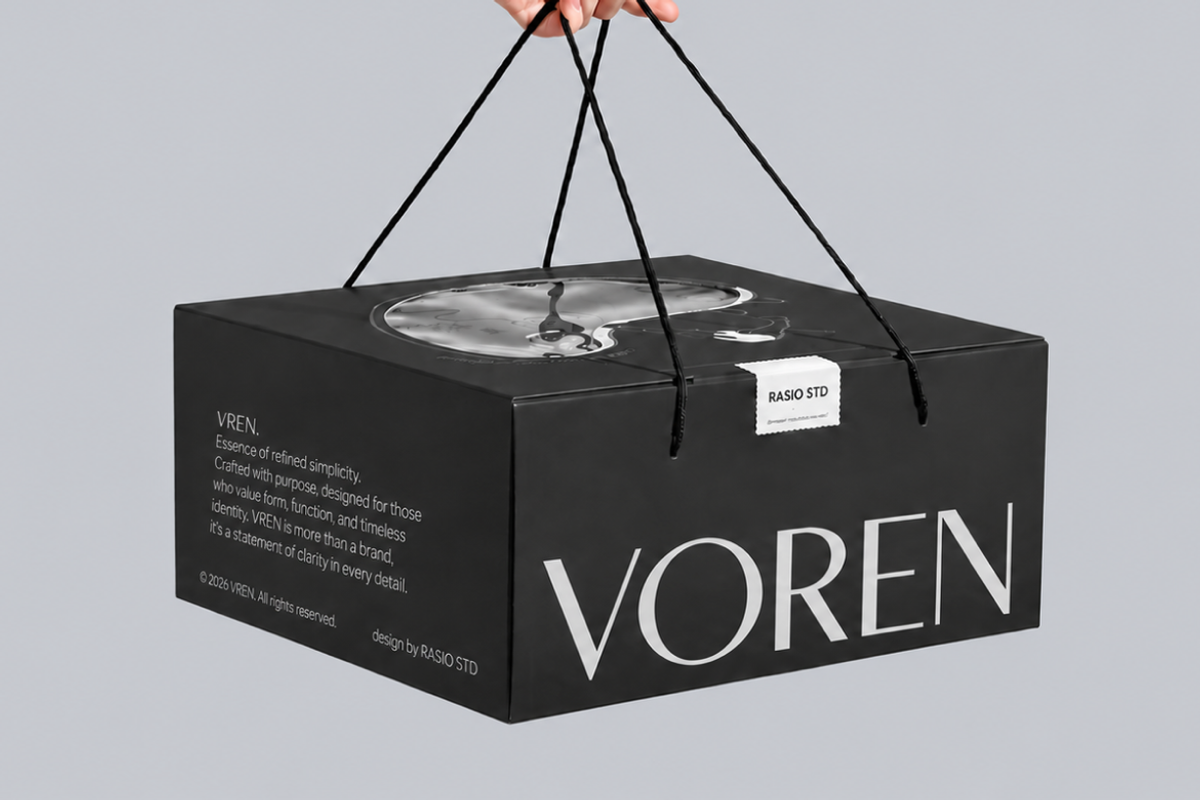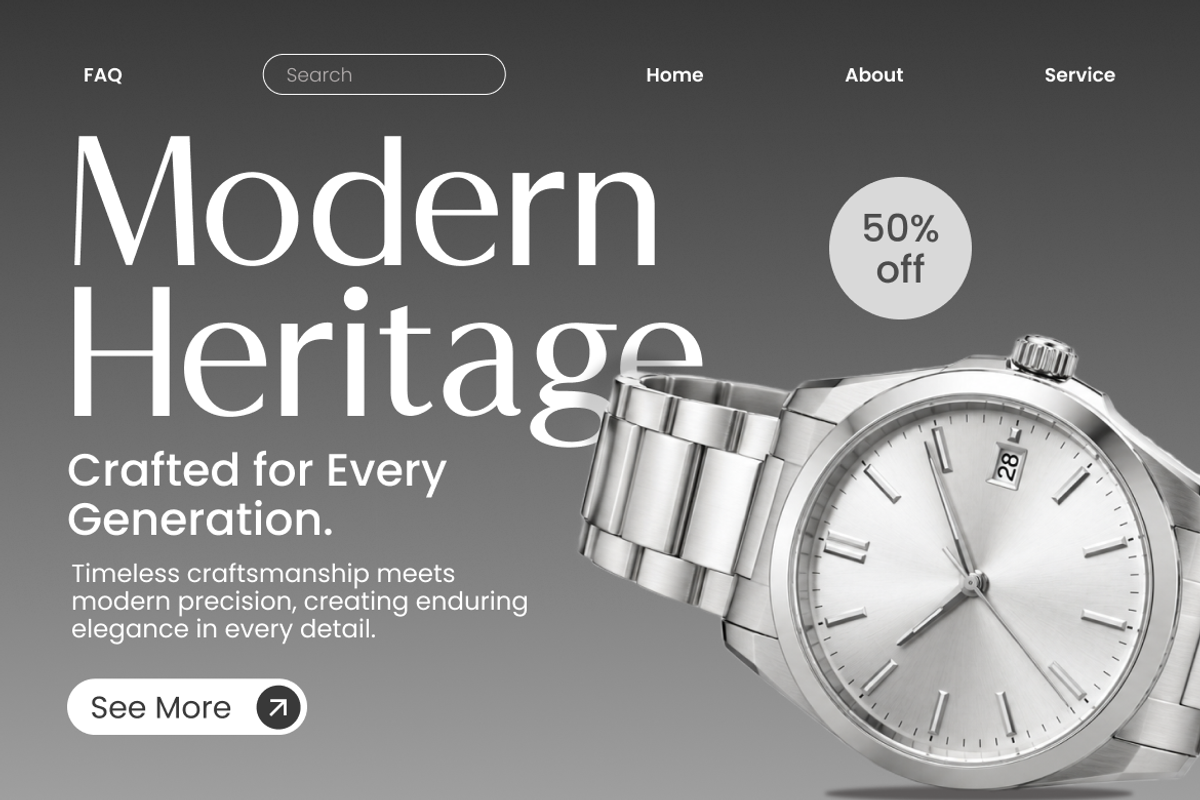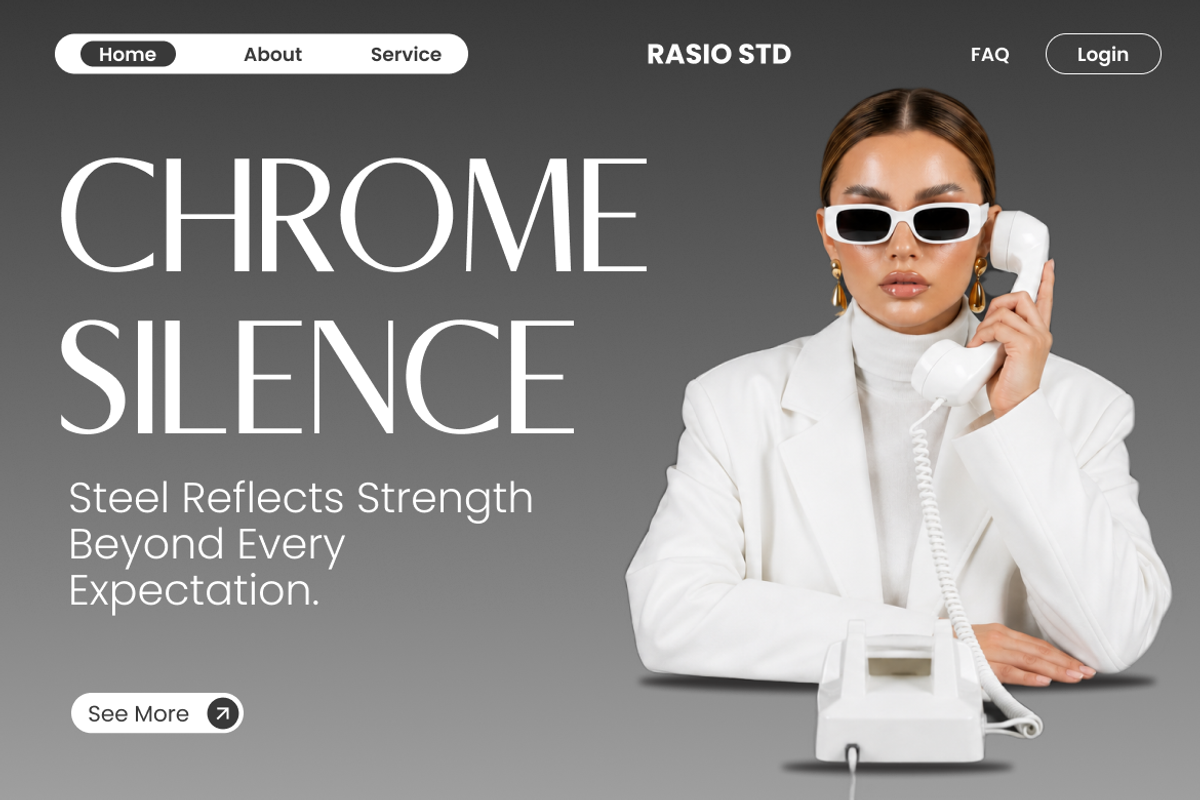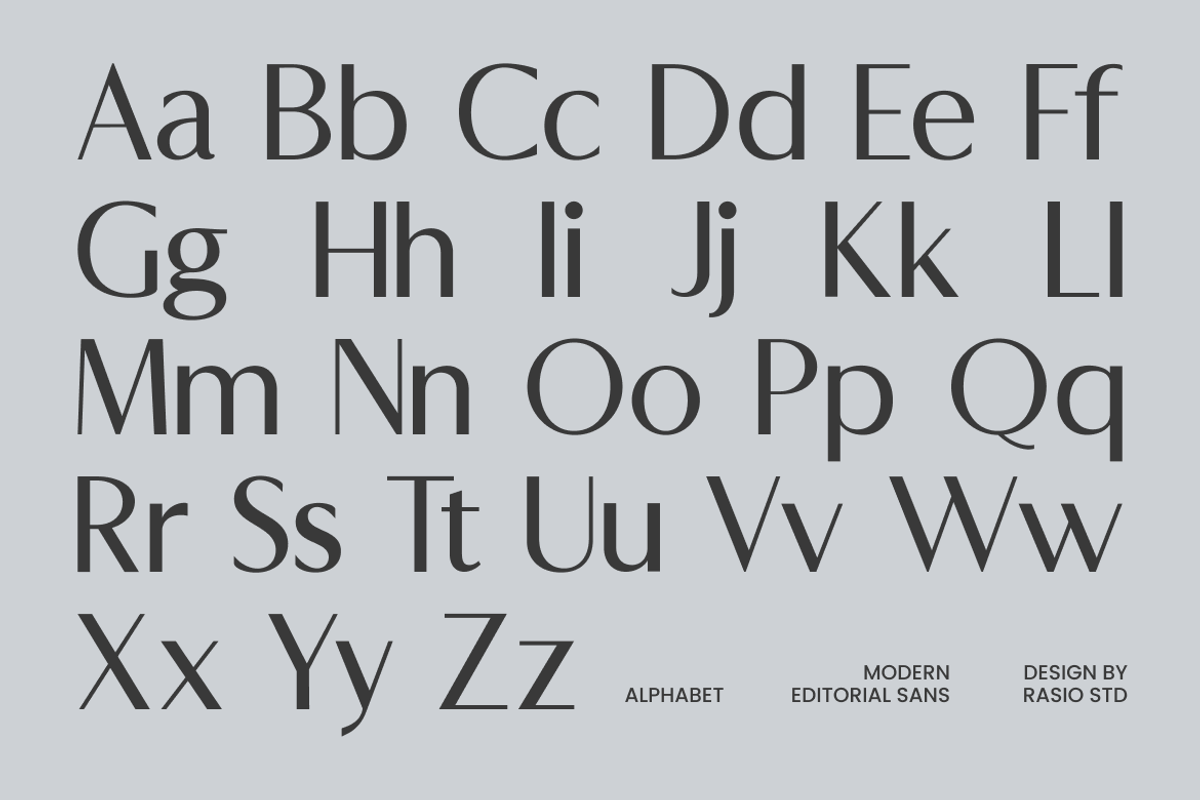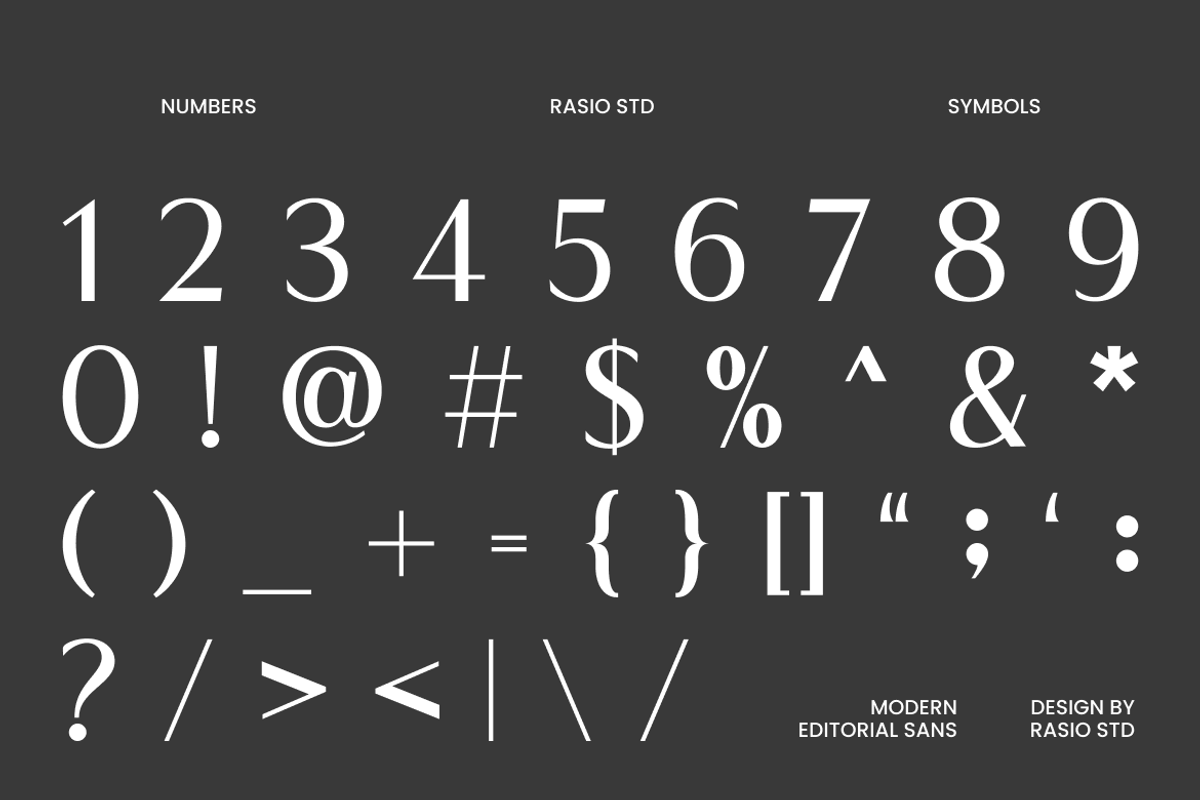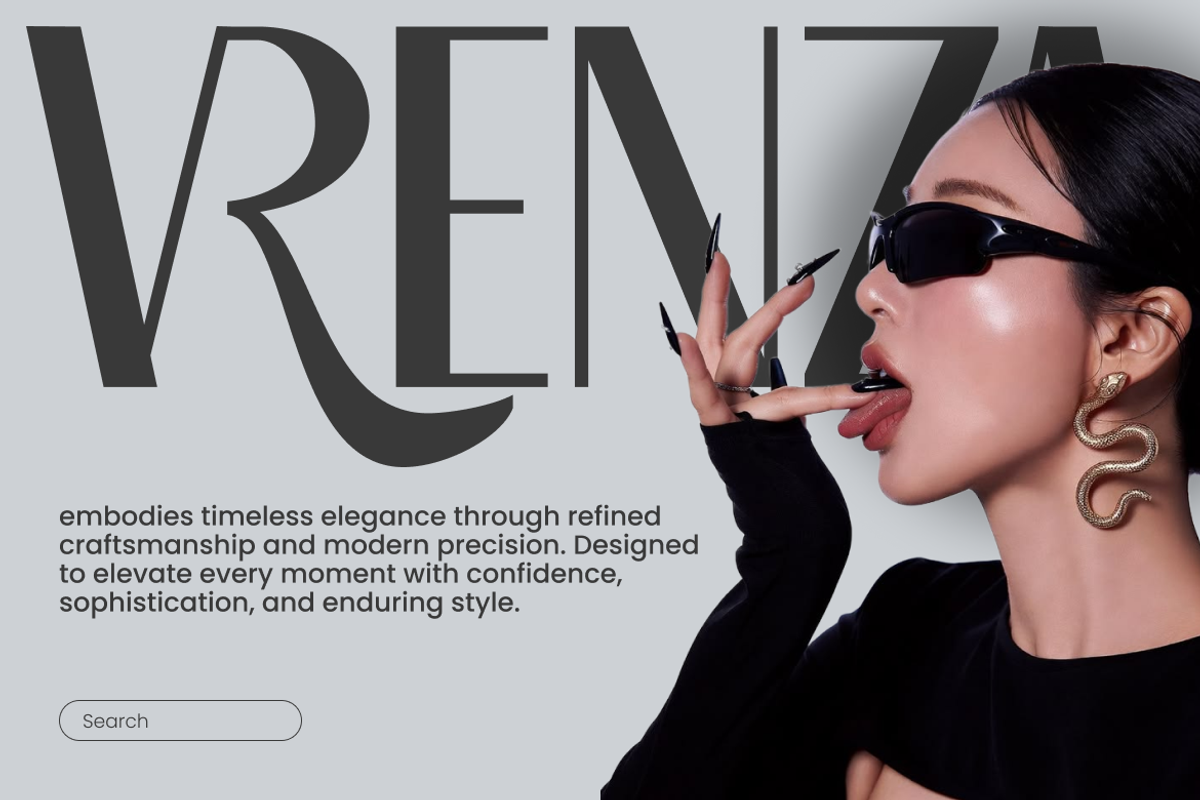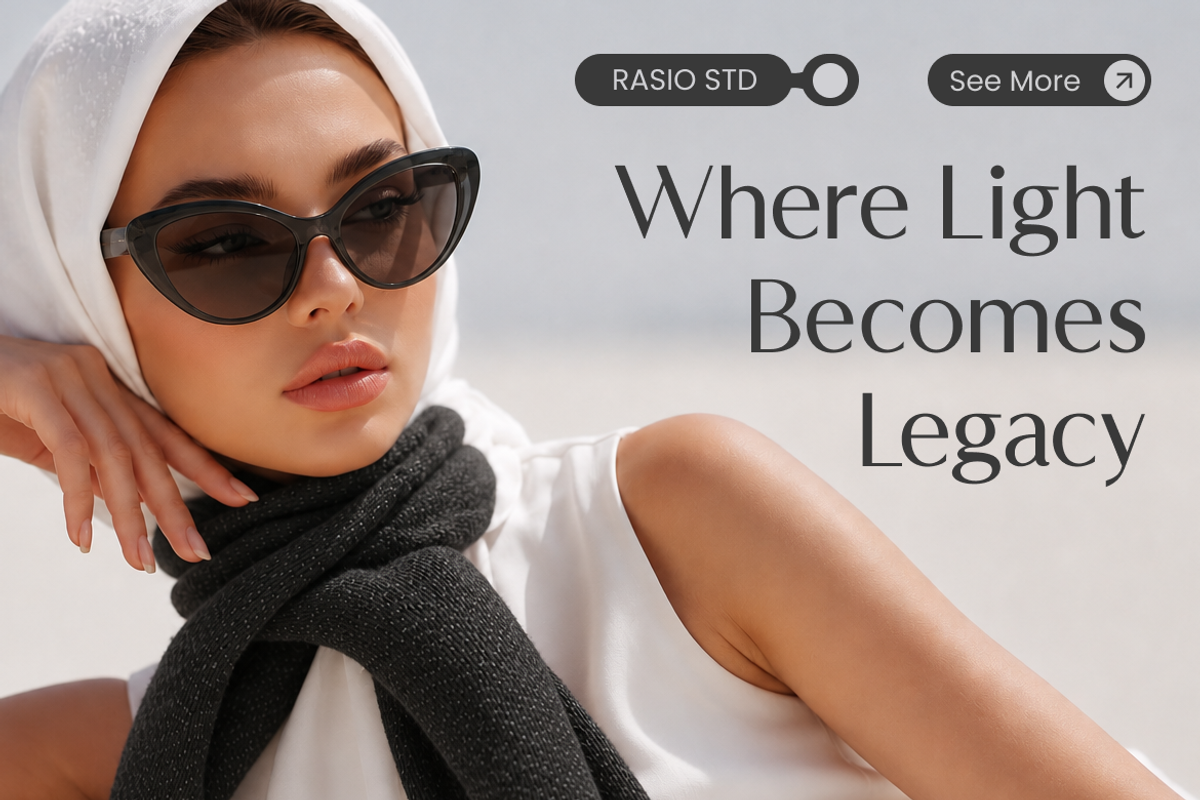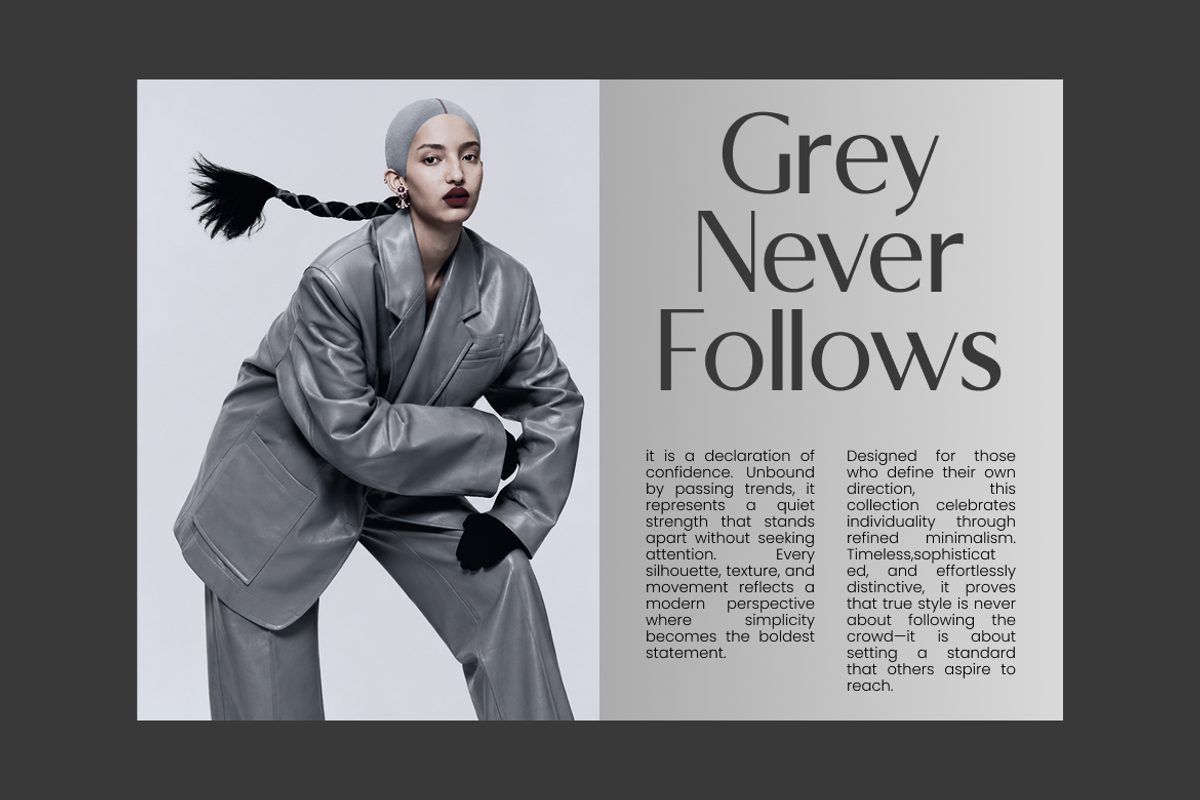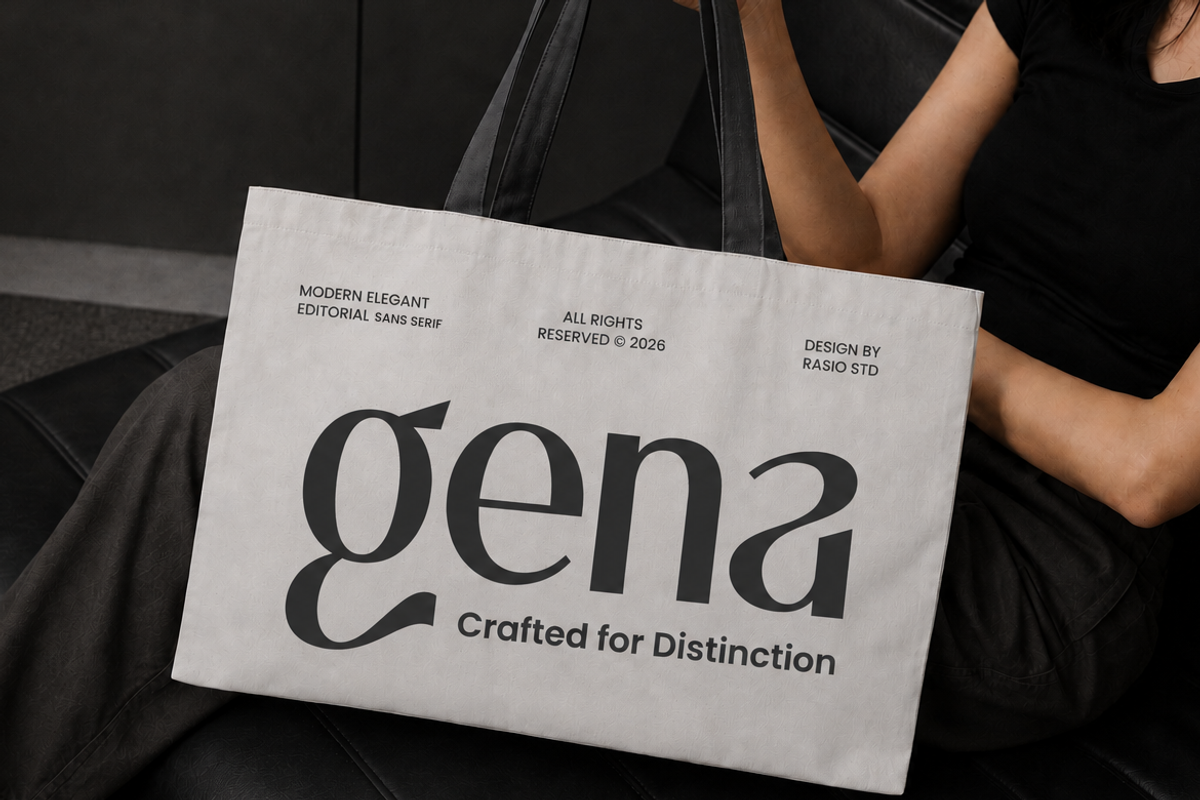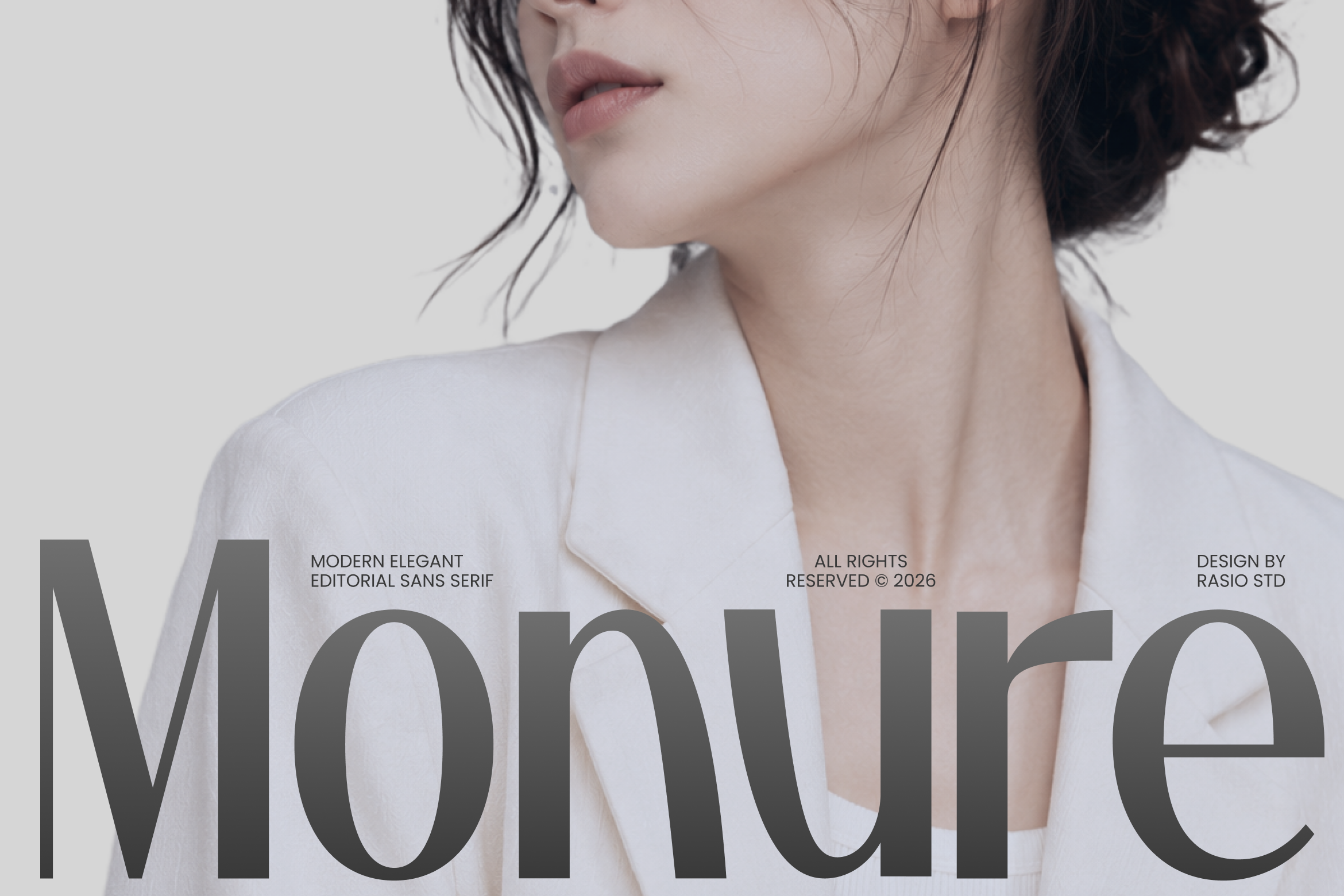
Monure Modern Editorial Sans Font
Monure is a modern editorial sans serif typeface built around high-contrast strokes, elongated proportions, narrow letter structures, and elegant curved terminals. The uppercase letters create a tall, refined silhouette, while the lowercase characters introduce distinctive shapes through their curved bowls, tapered transitions, and varied stroke widths. This combination gives Monure a fashion-forward appearance that feels clean at larger sizes while retaining enough character to make short words and headlines visually memorable.
Monure works especially well when the typography itself needs to establish a fashion, beauty, editorial, or premium visual direction. Use it for fashion label names, perfume and cosmetics packaging, magazine mastheads, editorial headlines, collection names, campaign titles, boutique signage, beauty advertisements, lookbooks, product titles, website hero typography, and social media campaign graphics. Its tall letterforms are particularly useful for narrow vertical layouts and oversized headlines, while the refined lowercase characters can create a more graceful appearance for brand names and short phrases.
Modern editorial sans serif with refined, elongated proportions
High-contrast strokes create an elegant and sophisticated appearance
Clean geometric structure balanced with subtle humanist curves
Distinctive rounded terminals and smooth letterforms for a polished look
Tall uppercase forms create strong visual impact in large headlines
Fashion editorials magazine covers, lookbooks, and photography-led layouts
Beauty branding skincare, cosmetics, fragrance, and lifestyle campaigns
Luxury branding wordmarks, packaging, product names, and promotional graphics
Magazine design feature titles, section headers, captions, and cover typography
Social media graphics elegant campaign headlines paired with photography
Screen-optimized kerning for responsive web design
Supports numerals, punctuation, and extensive symbol set